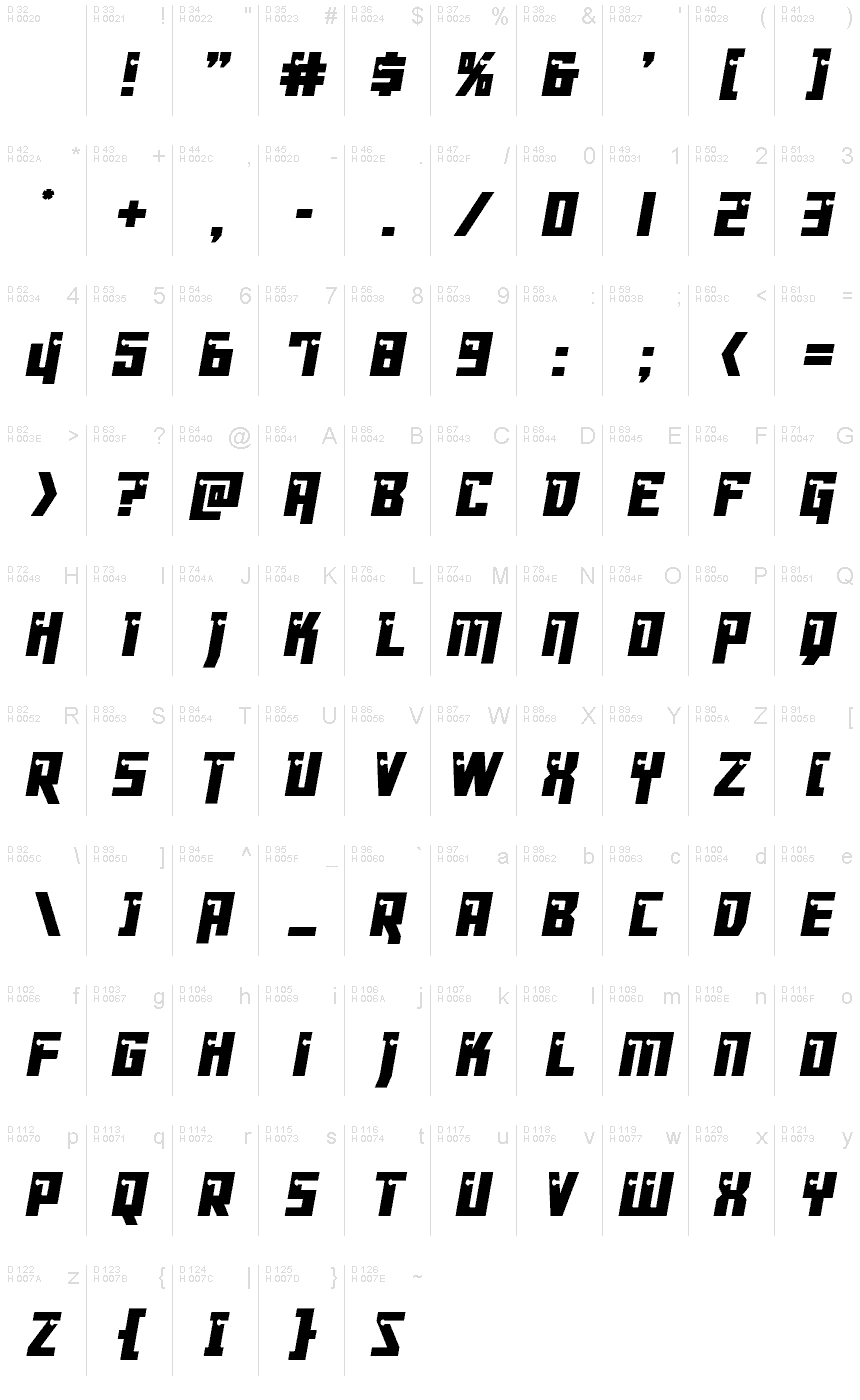
Dangerbot Condensed
Dangerbot Condensed font by Iconian Fonts is a futuristic display font with an assertive character and modern edge. Its geometric shapes, industrial look, and sharp angles make for a static typographic design with minimal non-rectangular elements in the letters. Much like other free techno display fonts, this one screams ‘technology’ at every viewer from afar and remains unambiguous even when read from up close.
The condensed font is an ideal fit for works like posters, advertisements, logotypes, social media posts/graphics, magazine/newspaper headlines or cover titles. Other suggested uses are for book cover designs (printed or digital edition), videogame title name graphics and other gaming industry relevant visuals.